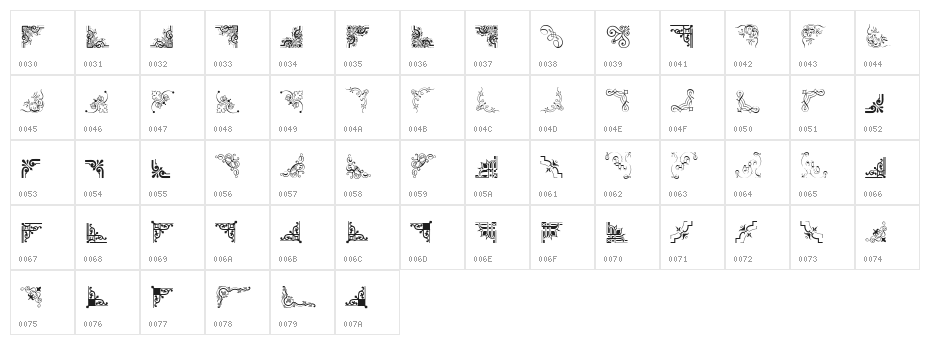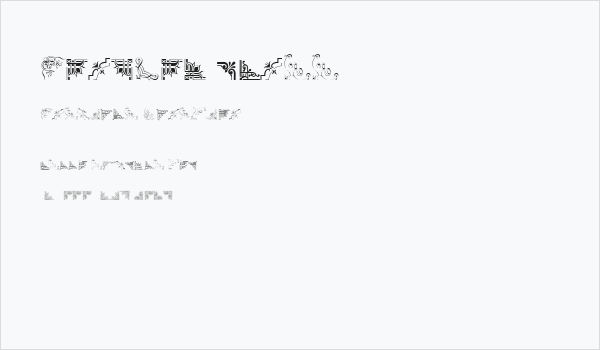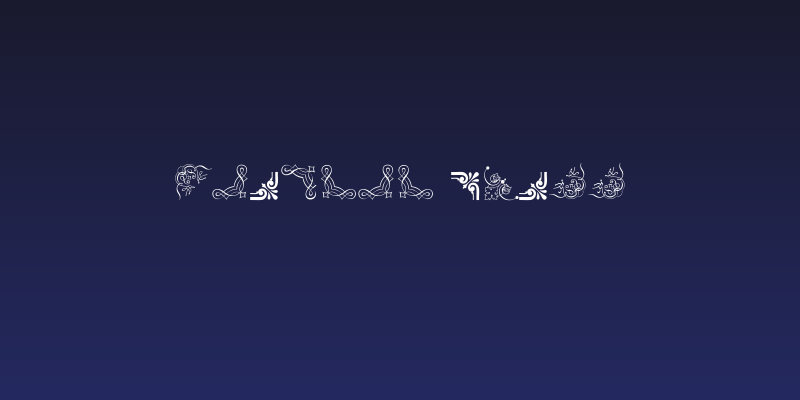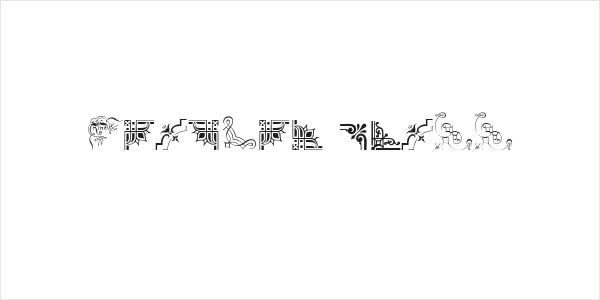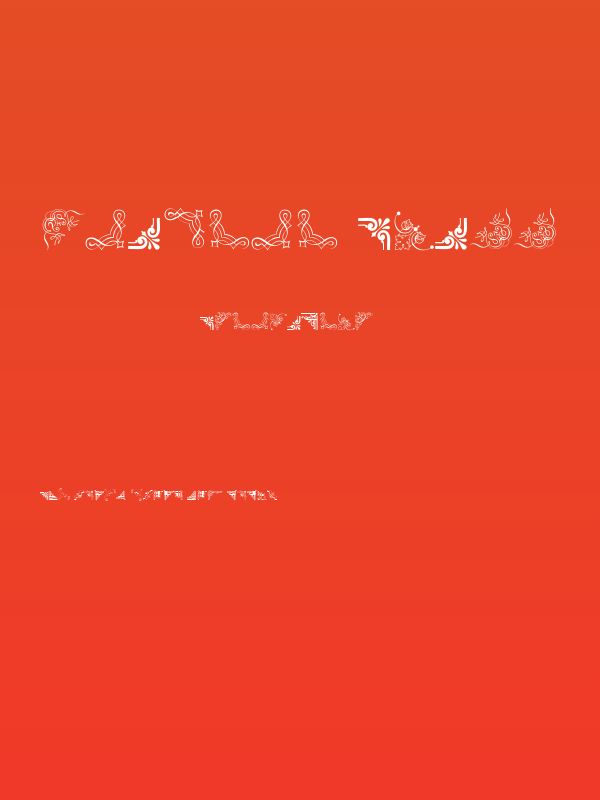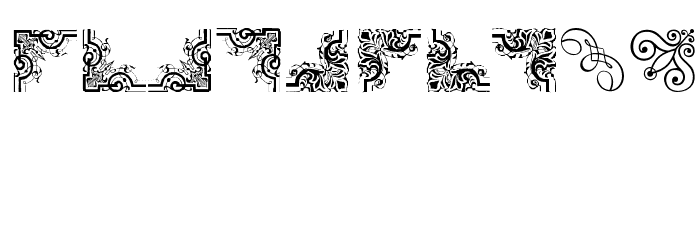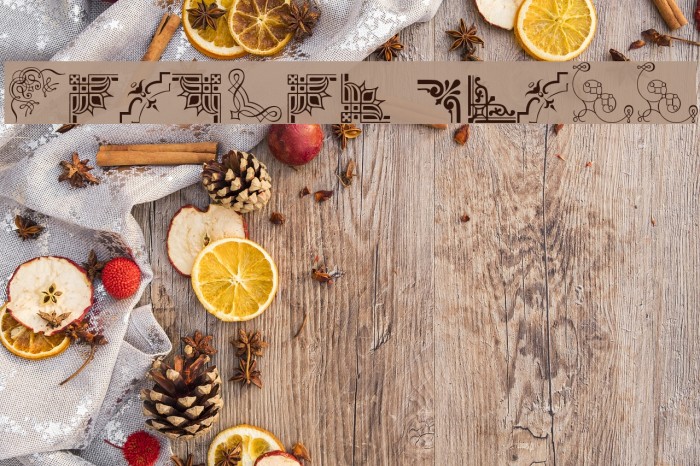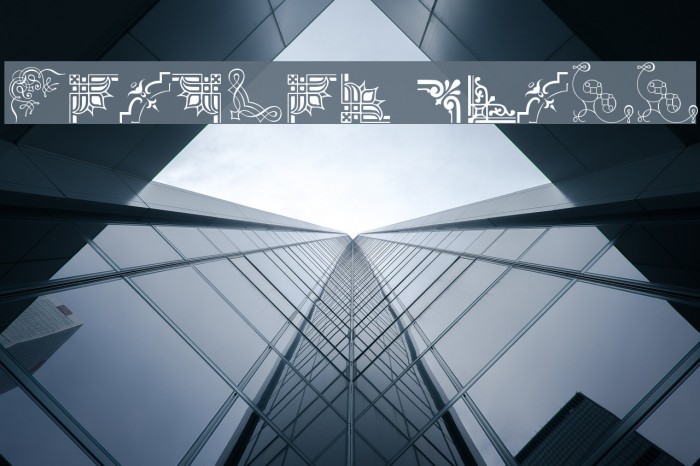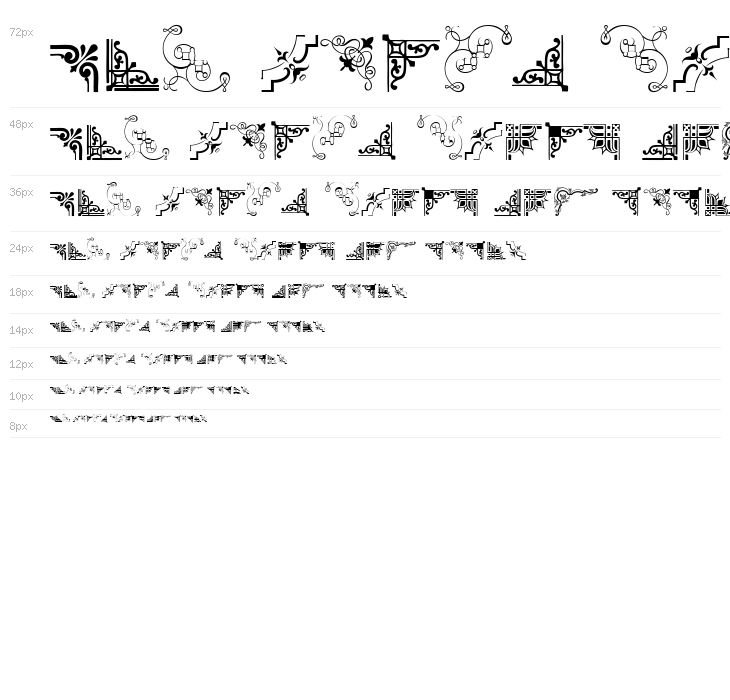
CornPop Three Font
CornPop Three Description
This collection of decorative elements features intricate and ornate designs that are perfect for adding a touch of elegance and sophistication to any project. The elements include a variety of flourishes, borders, and corner designs, each with a unique and detailed pattern. The designs are characterized by their elaborate swirls, curls, and floral motifs, which create a sense of movement and flow. These elements are ideal for use in invitations, certificates, or any project that requires a classic and refined aesthetic. The high level of detail in each design ensures that they will stand out and make a statement, whether used individually or in combination with other elements.